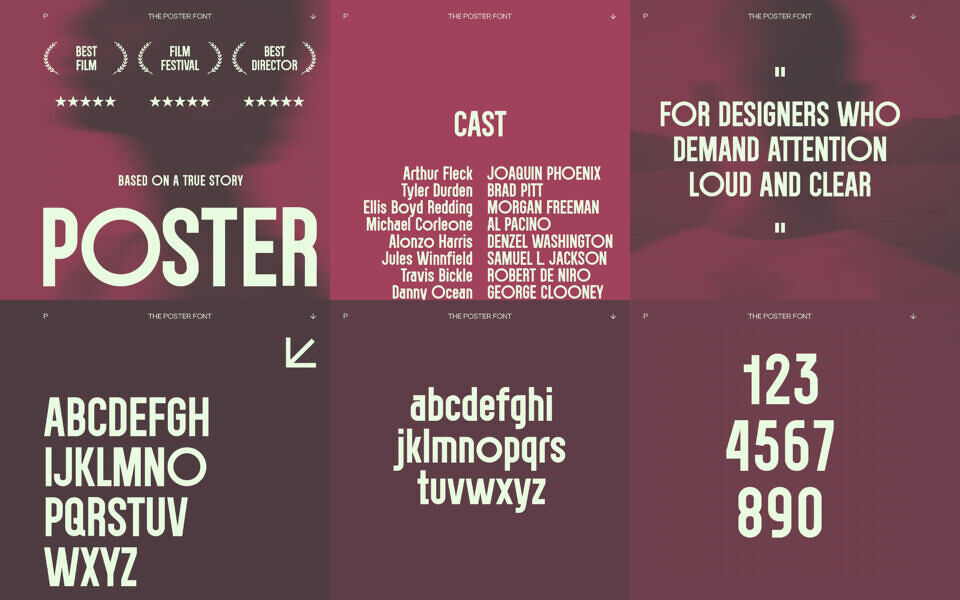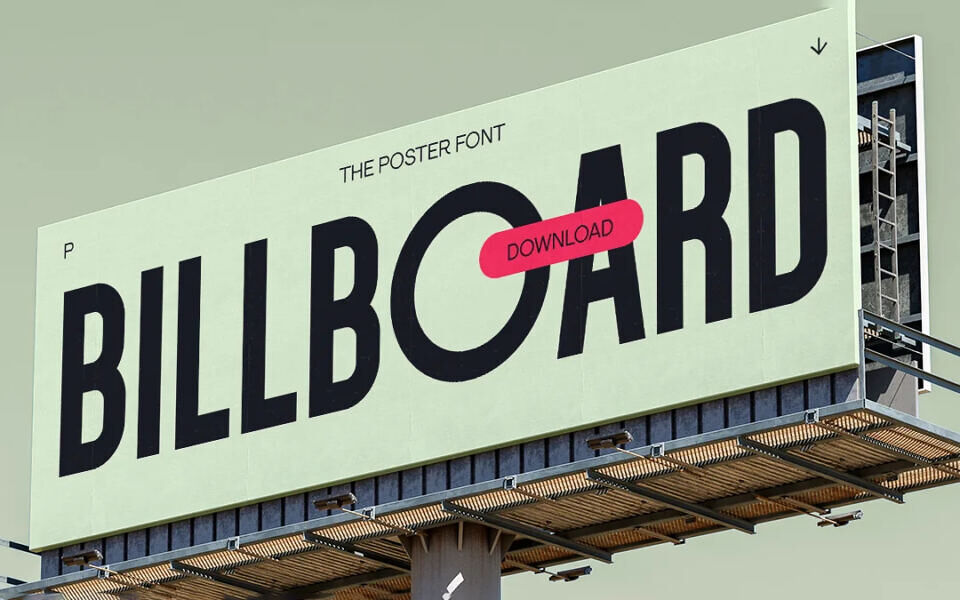
The Poster Font, designed by Sven Pels, is a condensed, high-impact sans-serif typeface crafted for bold poster designs. Its clean, modern aesthetic features strong, geometric letterforms with a minimalist edge, making it ideal for striking headlines and eye-catching displays.
The font’s tight spacing and robust structure convey a sense of brutalism and intensity, perfect for impactful visual statements.